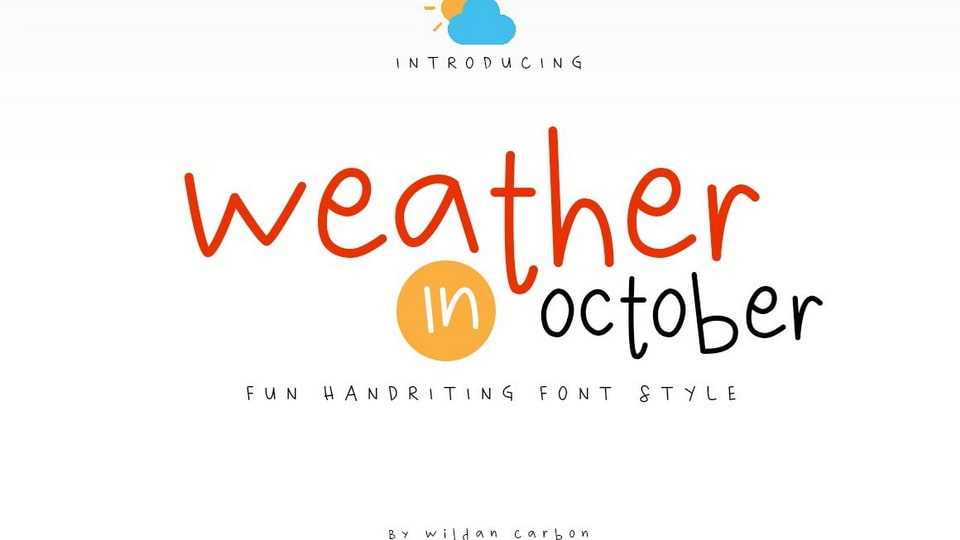
Download Weather in October font, a funny handwritten typeface. The letters are classy and unique. Use Weather in October to get a more elegant look.